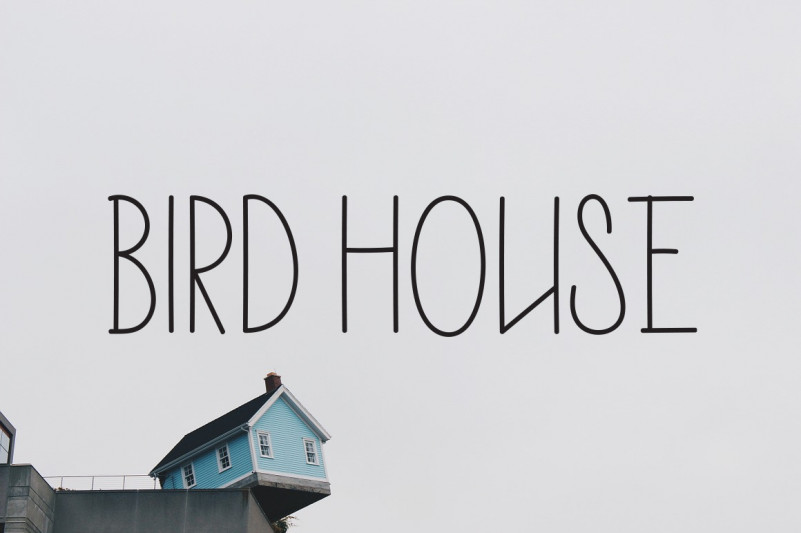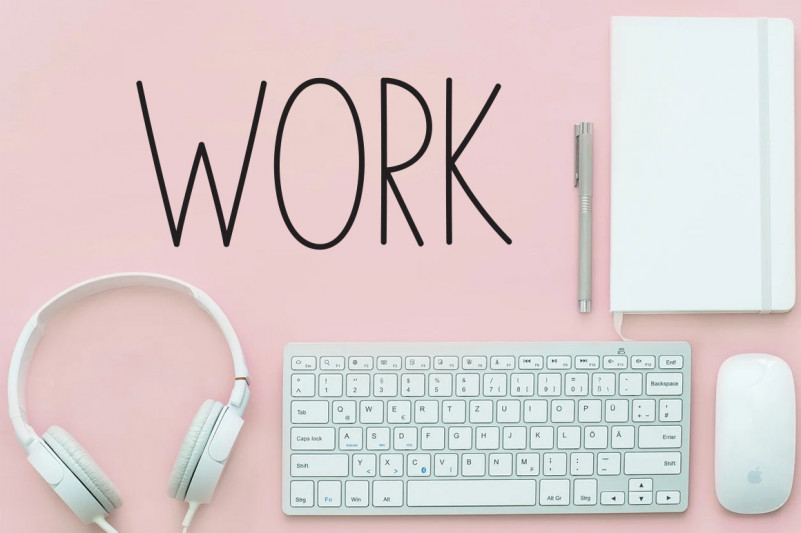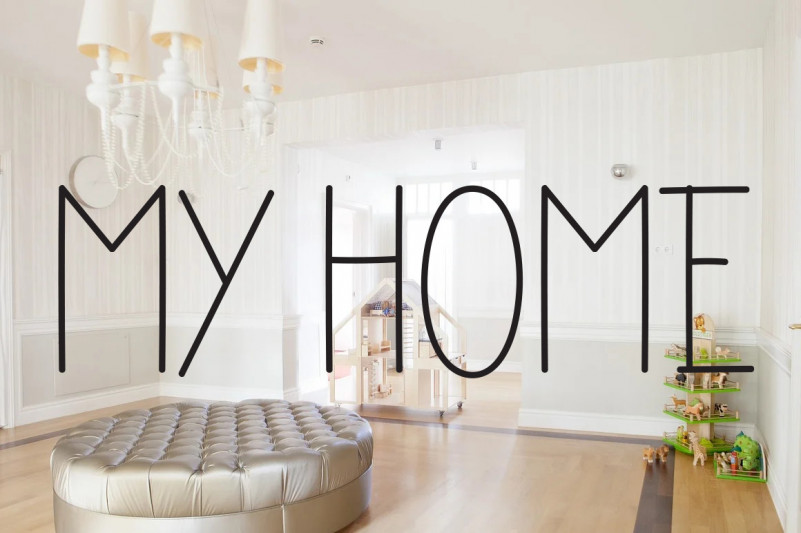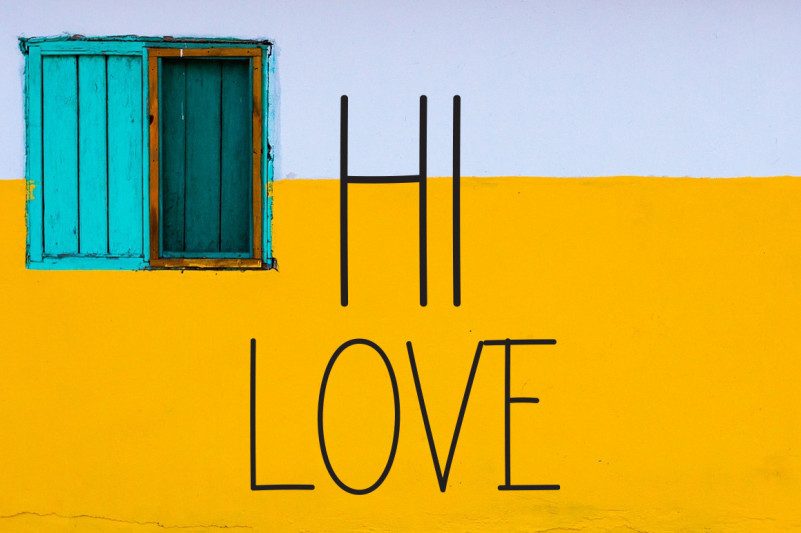
Home Sweet Home Font
Home Sweet Home Display Font
This is a dainty, thin and adaptable handwritten font. No matter the topic, this font will be an incredibly asset to your fonts’ library, as it has the potential to elevate any creation.